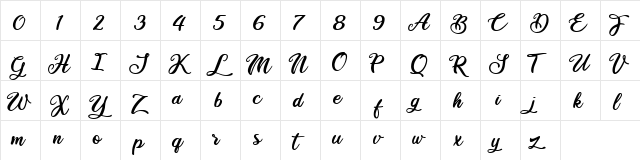
Ballet Harmony Ballet Harmony
Design Context for Ballet Harmony Typeface
Ballet Harmony is a composed and adaptable typeface that performs quietly and consistently across a wide range of design contexts.
Pro Tip: Use Ballet Harmony in both headline and body roles to test its range before committing to a single application.